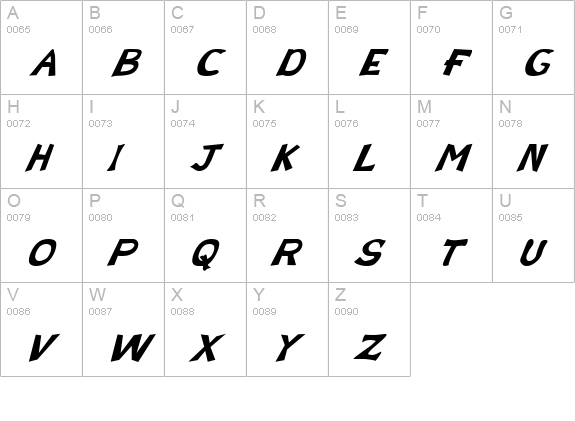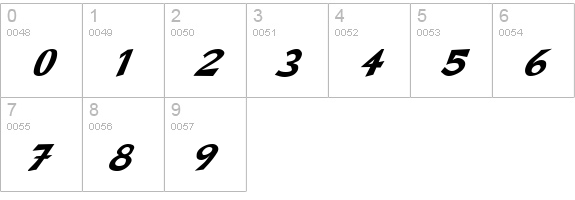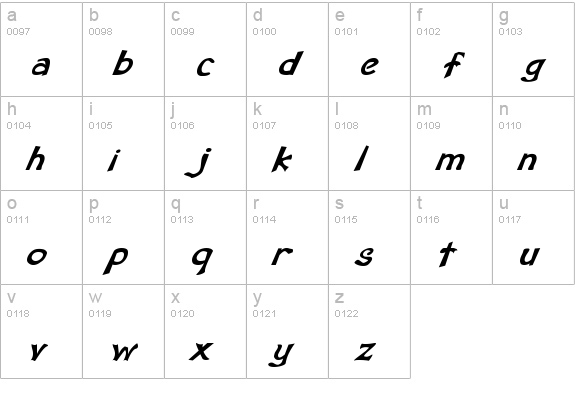
FZ BASIC 12 ITALIC Font Details
FZ BASIC 12 ITALIC is a distinctive, italic variant in the FZ typeface family \xE2\x80\x94 well suited to design and typography projects.
FZ BASIC 12 ITALIC font is a sleek and modern typeface that adds a touch of sophistication to any design project. Its italic style exudes elegance and professionalism, making it perfect for use in a wide range of applications. The clean lines and smooth curves of this font create a striking visual impact that will captivate viewers. What sets FZ BASIC 12 ITALIC font apart is not only its aesthetic appeal but also its versatility. Whether you're designing a website, creating a logo, or working on a print project, this font is sure to elevate your work to the next level. Its legibility and readability make it a great choice for both headlines and body text. Best of all, FZ BASIC 12 ITALIC font is free for personal and commercial use. You can easily download it at FontsMarket.com and start using it in your projects right away. Don't miss out on this fantastic opportunity to enhance your designs with a high-quality font that is both stylish and professional.